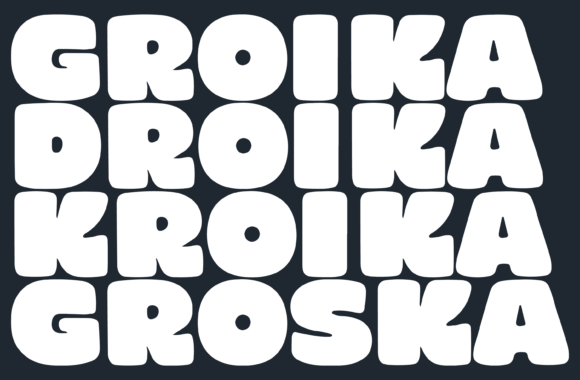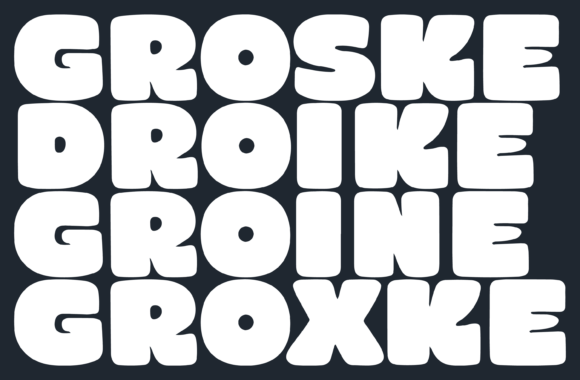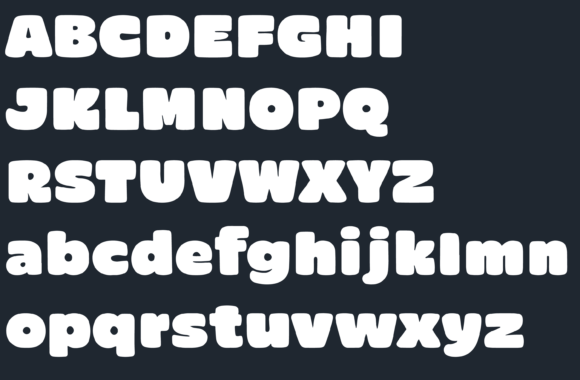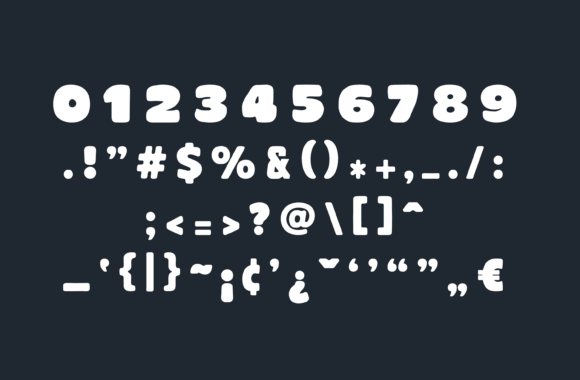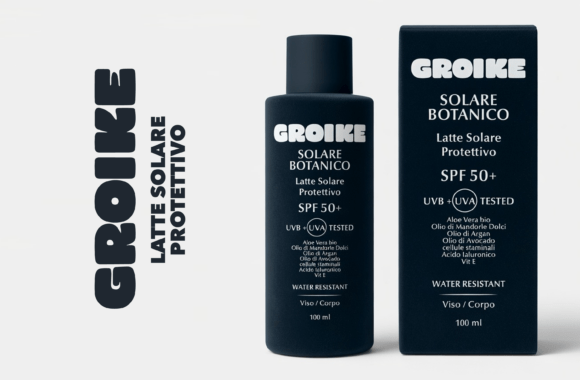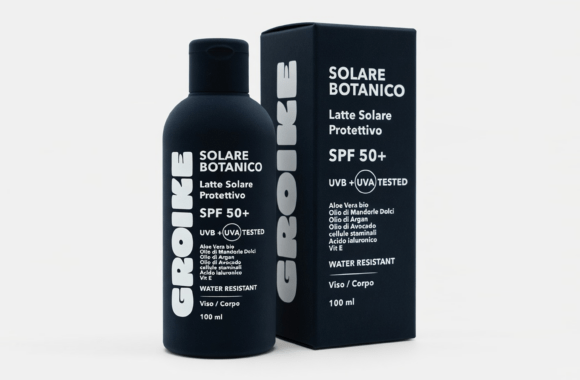
Introducing Groike Font: The Ultimate Display Font for Injecting Joy into Your Creative Work
Are you tired of using the same old fonts in your designs? Do you want to add a dash of fun and playfulness to your creative projects? Look no further than Groike Font, a bold and playful display font that’s sure to bring a smile to your face. In this article, we’ll dive into the features and benefits of Groike, and explore how it can elevate your designs to the next level.
The Inspiration Behind Groike
Groike is a font that’s all about joy and approachability. Its ultra-bold, chunky letterforms are designed to be eye-catching and engaging, while its soft, pillowy texture adds a touch of warmth and friendliness. The font’s creator was inspired by the idea of creating a typeface that would jump off the screen and grab the viewer’s attention. With Groike, you can add a dose of pure joy to your designs and make them truly unforgettable.
Key Features of Groike Font
So, what makes Groike so special? Here are just a few of its key features:
- Ultra-bold and chunky letterforms: Groike’s heavy weight and bold design make it perfect for headlines, titles, and other display text.
- Soft, pillowy texture: The font’s soft texture adds a touch of warmth and friendliness to your designs.
- Tight negative space: Groike’s tight negative space creates a friendly “bubble” aesthetic that’s perfect for creating visual interest and separation.
- Rhythmic, hand-drawn bounce: The font’s hand-drawn feel adds a touch of personality and whimsy to your designs.
Groike is a versatile font that can be used in a wide range of design projects. Here are just a few ideas to get you started:
- Vibrant snack packaging: Groike’s bold and playful design makes it perfect for snack packaging that needs to stand out on store shelves.
- Independent toy store logos: The font’s friendly and approachable aesthetic makes it a great choice for toy store logos that need to appeal to kids and parents alike.
- Children’s book titles: Groike’s whimsical design makes it perfect for children’s book titles that need to capture the imagination of young readers.
- High-energy social media headers: The font’s bold and playful design makes it perfect for social media headers that need to grab attention and drive engagement.
Why Choose Groike Font?
So, why should you choose Groike for your design projects? Here are just a few reasons:
- Adds a touch of joy and playfulness: Groike’s fun and playful design is sure to bring a smile to your face and add a touch of joy to your designs.
- Perfect for attention-grabbing headlines: The font’s bold and chunky design makes it perfect for headlines and titles that need to grab attention.
- Versatile and adaptable: Groike can be used in a wide range of design projects, from packaging and logos to children’s books and social media headers.
- Easy to read and understand: Despite its bold and playful design, Groike is easy to read and understand, making it perfect for designs that need to communicate a message quickly and clearly.